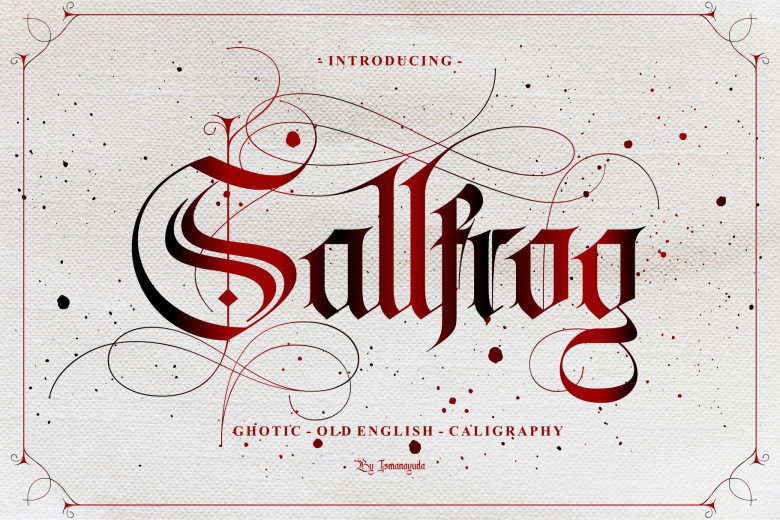
Sallfrog Font
Sallfrog is an eye-catching blackletter font designed for bold projects. When included, the results will speak for themselves! Plus, its PUA code gives you access to its entire library of glyphs and swashes with ease!
Sallfrog Blackletter Font